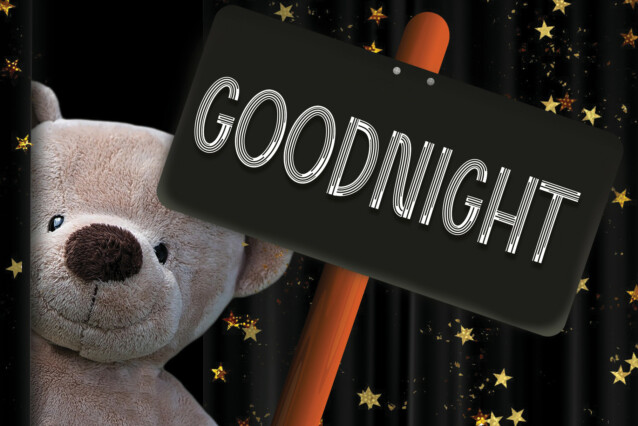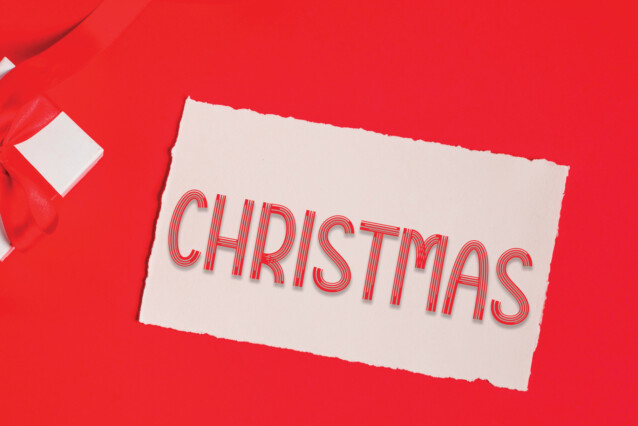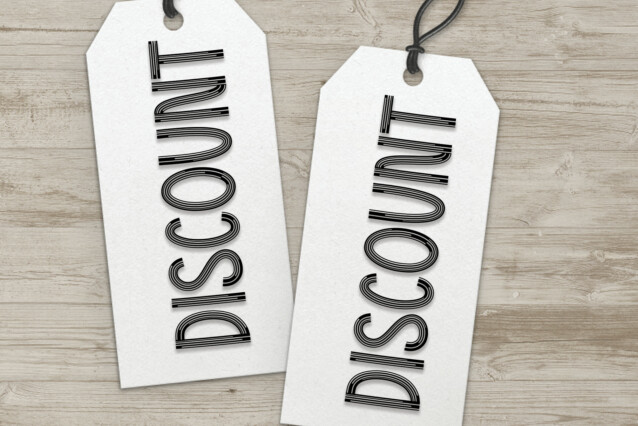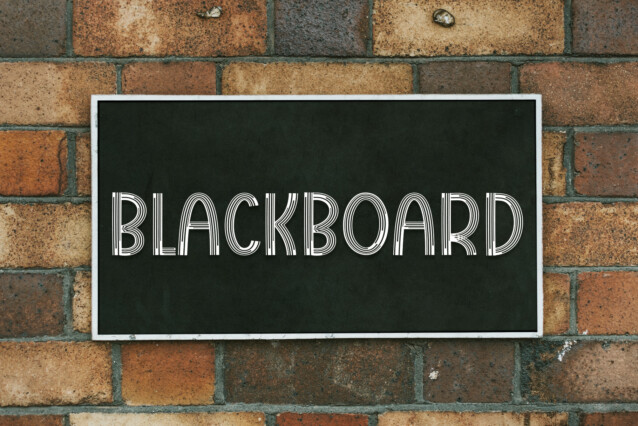
Christmas Eve Bells Display Font
Christmas Eve Bells Display Font is a fun and festive display font that fits incredibly well with this time of the year. No matter the topic, this font will be an incredible asset to your fonts’ library, as it has the potential to elevate any creation.